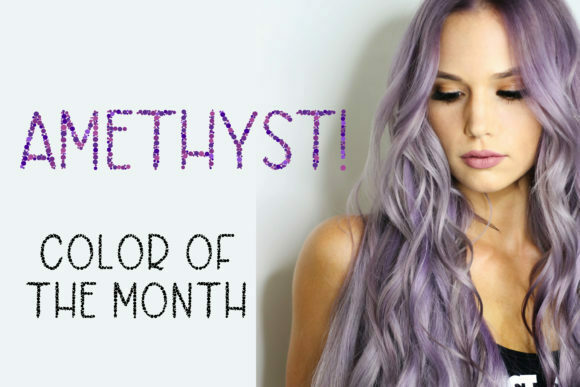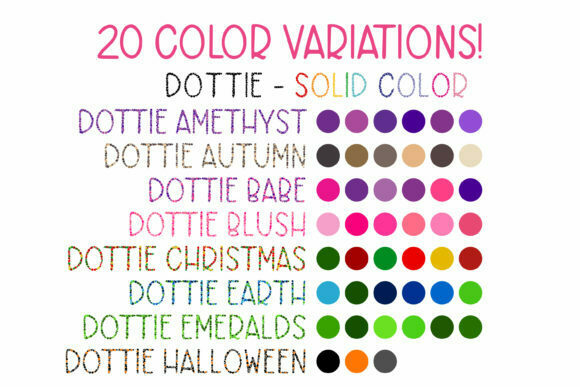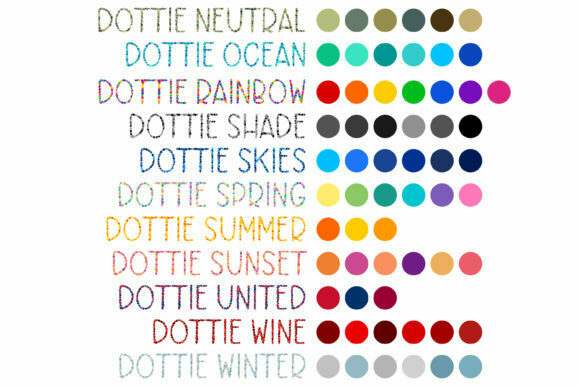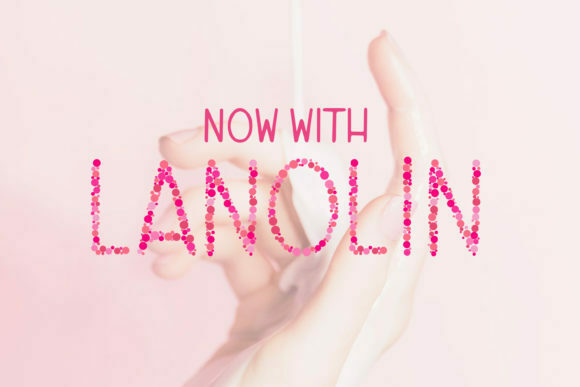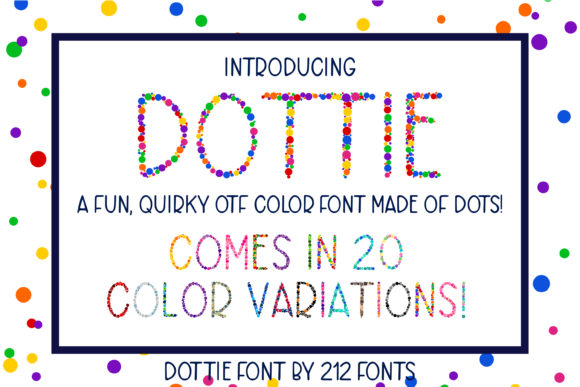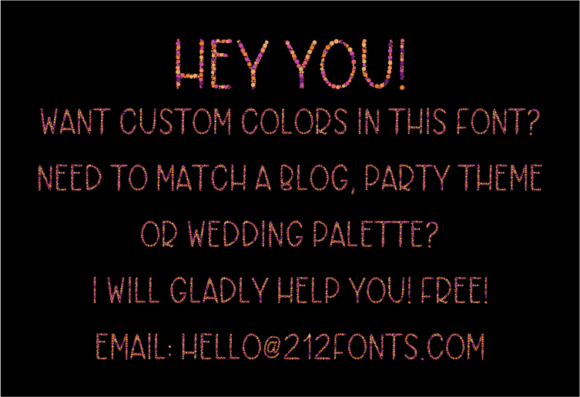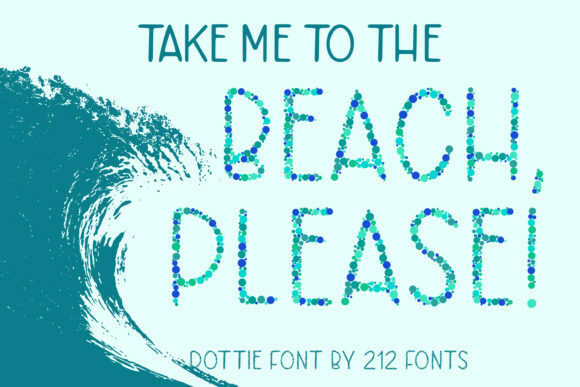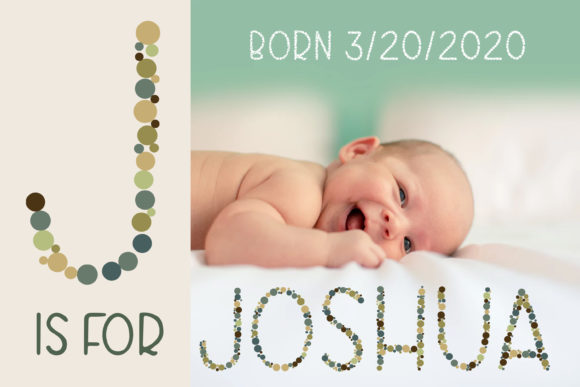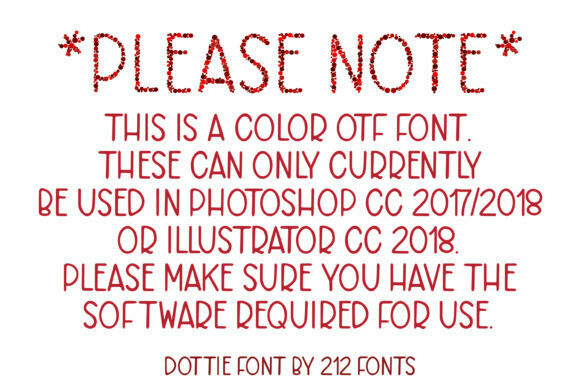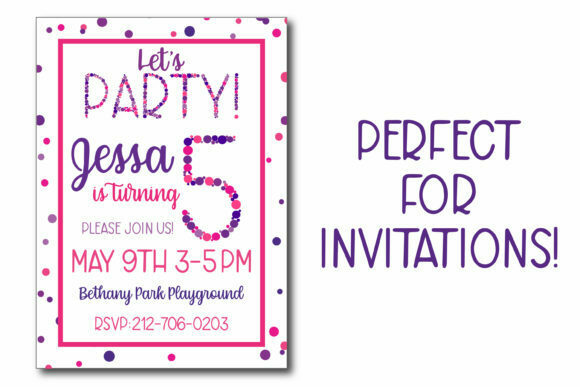
Dottie Font
About Dottie Font
Dottie is indeed a fun and quirky font that brings a unique and playful element to any design project. With its dot-filled characters, it adds a splash of creativity and personality to your text.
Whether you’re designing invitations, posters, or social media graphics, Dottie’s distinctive style will instantly captivate attention and make your text stand out. The dots create a visually interesting texture and give a lively and dynamic feel to your designs. This font is particularly well-suited for projects targeting children, such as children’s books, comic strips, or any design that aims to evoke a sense of joy and whimsy.
By incorporating Dottie into your designs, you can infuse them with a charming and playful touch that sets them apart. The dots add a visual element of interest, making your text visually appealing and engaging. Embrace the creative possibilities that Dottie offers and let the dots do the talking, bringing a sense of fun and liveliness to your design projects.